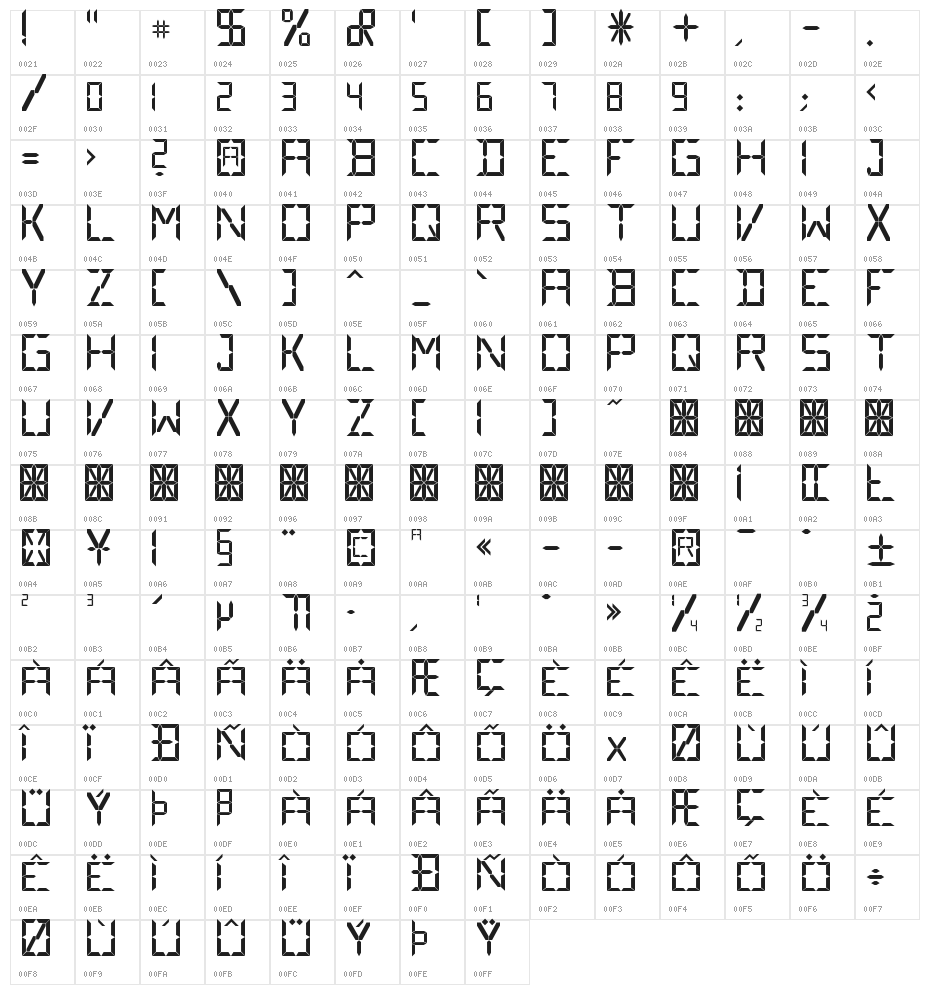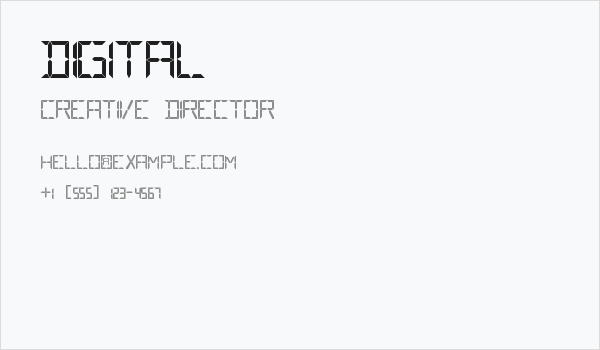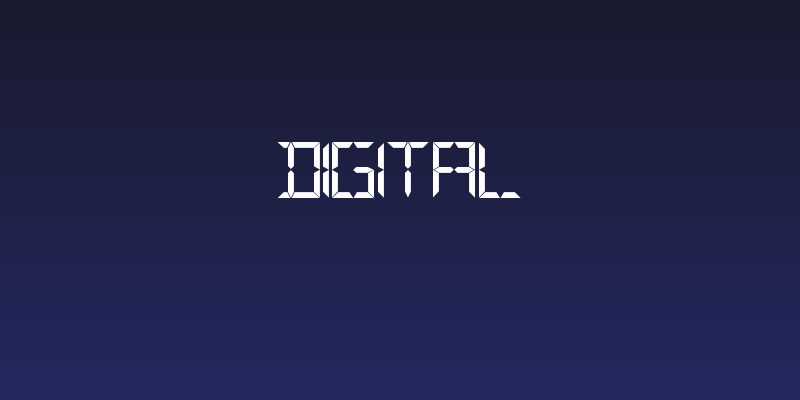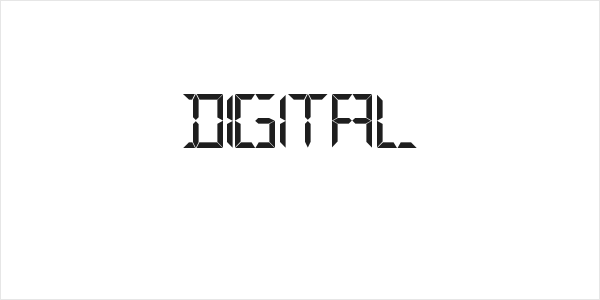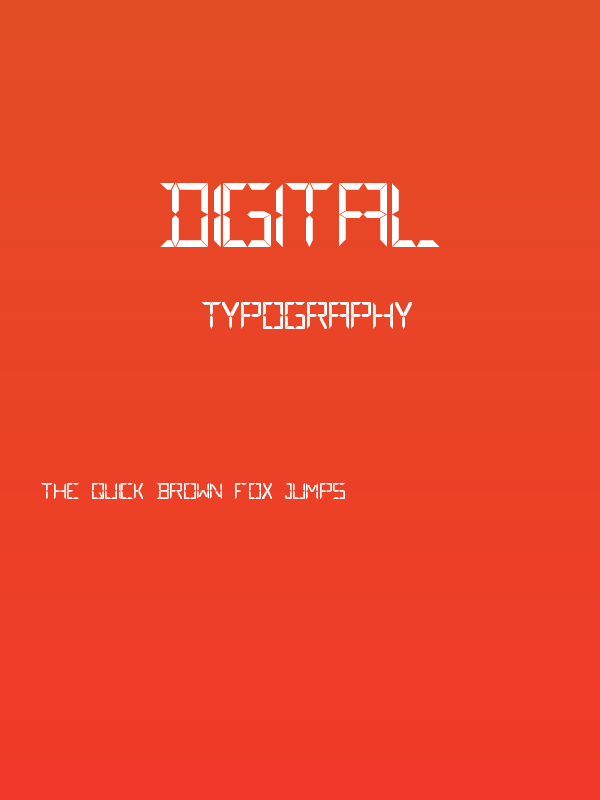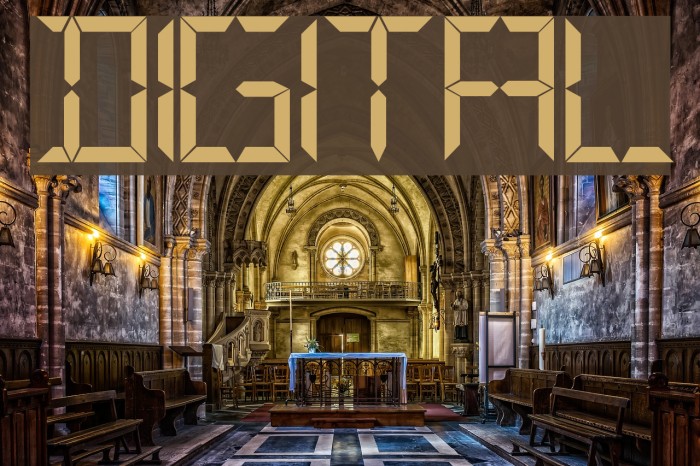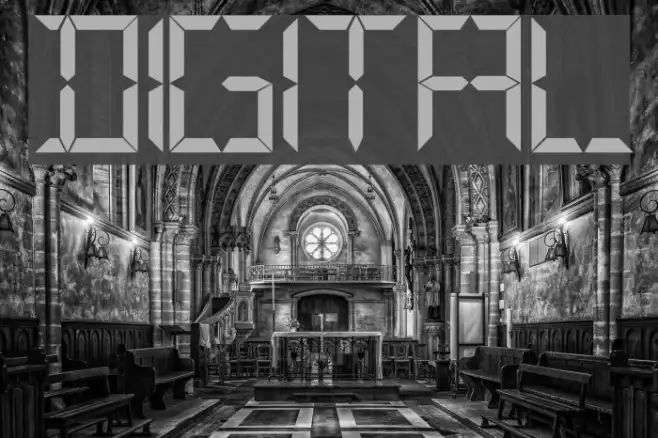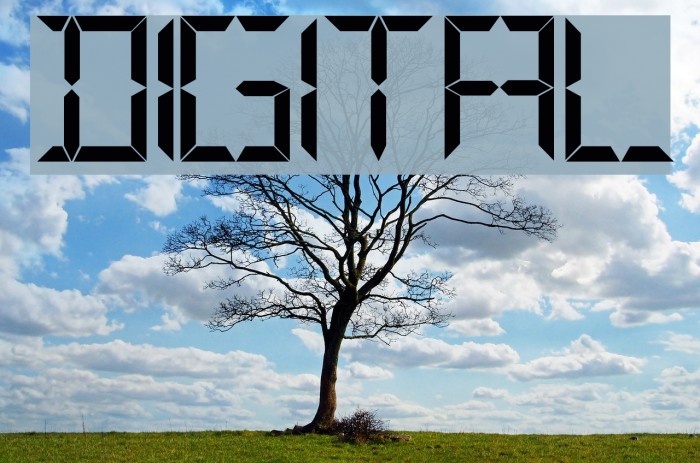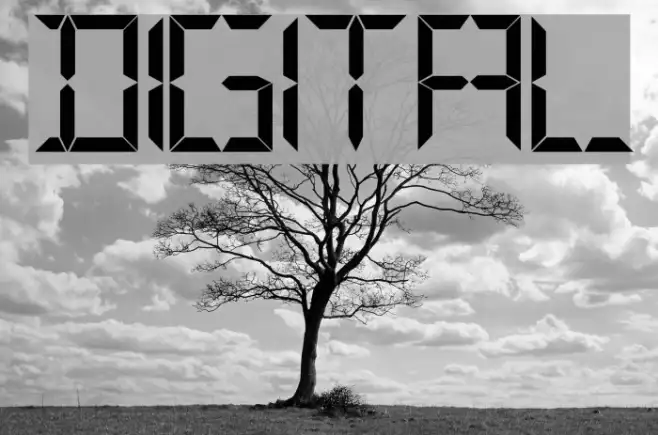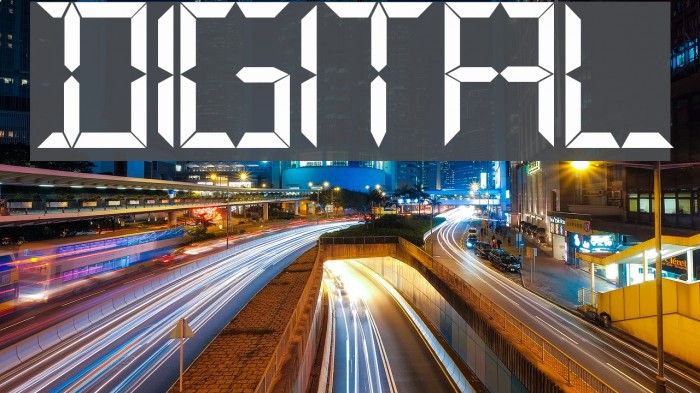
Digital Font
Digital Description
This font features a digital, segmented style reminiscent of LED displays or digital clocks. Each character is constructed using a series of straight lines and angles, creating a geometric and technical appearance. The design is highly structured, with consistent line thickness throughout, giving it a uniform and cohesive look. The characters are bold and easily legible, making them suitable for digital-themed projects. The font's unique style captures the essence of retro digital technology, making it ideal for projects that require a futuristic or tech-inspired aesthetic.
| Use Case | Headlines, Logos, Digital Displays |
| Proposed Projects | Ideal for digital interfaces, tech-themed posters, retro-futuristic designs, and electronic device displays. |